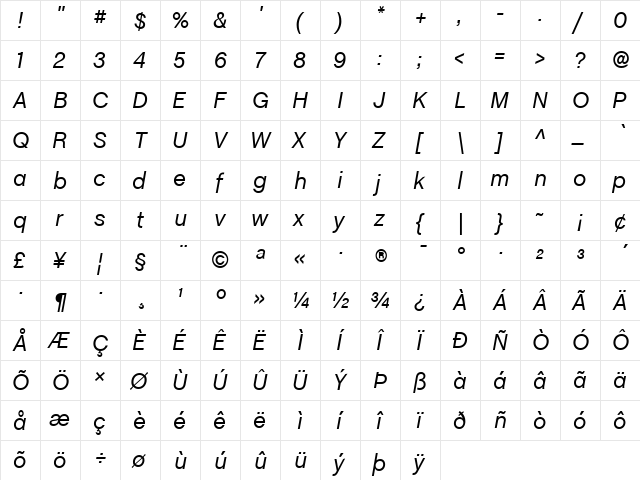
ChaletBookTT Italic
| Foundry | House Industries/Brand Design Co. Inc, |
| Designer | House Industries |
Design Context for ChaletBookTT Typeface
ChaletBookTT takes a measured approach to typography — its balanced proportions and neutral character make it a reliable workhorse for both digital and print work. The dynamic lean of this cut emphasises speed and emphasis in any layout.